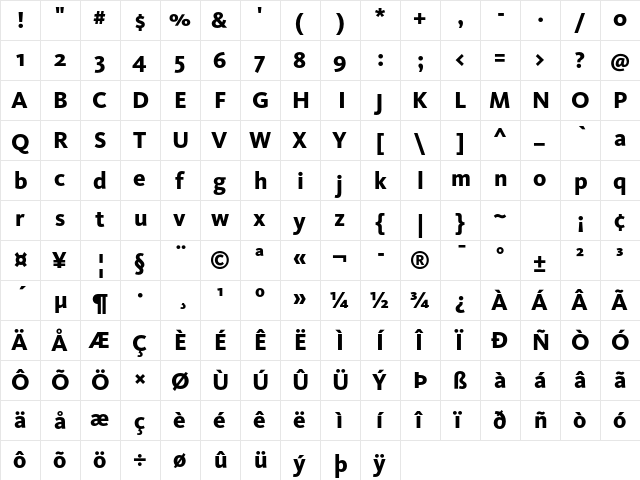
KievitOT-ExtraBold Regular
| Foundry | FSI Fonts und Software GmbH |
| Designer | Mike Abbink |
Design Context for KievitOT-ExtraBold Typeface
KievitOT-ExtraBold offers clean, dependable letterforms without strong stylistic allegiance, making it a practical choice for designers who need flexibility. The heavy weight commands attention and anchors typographic hierarchies.